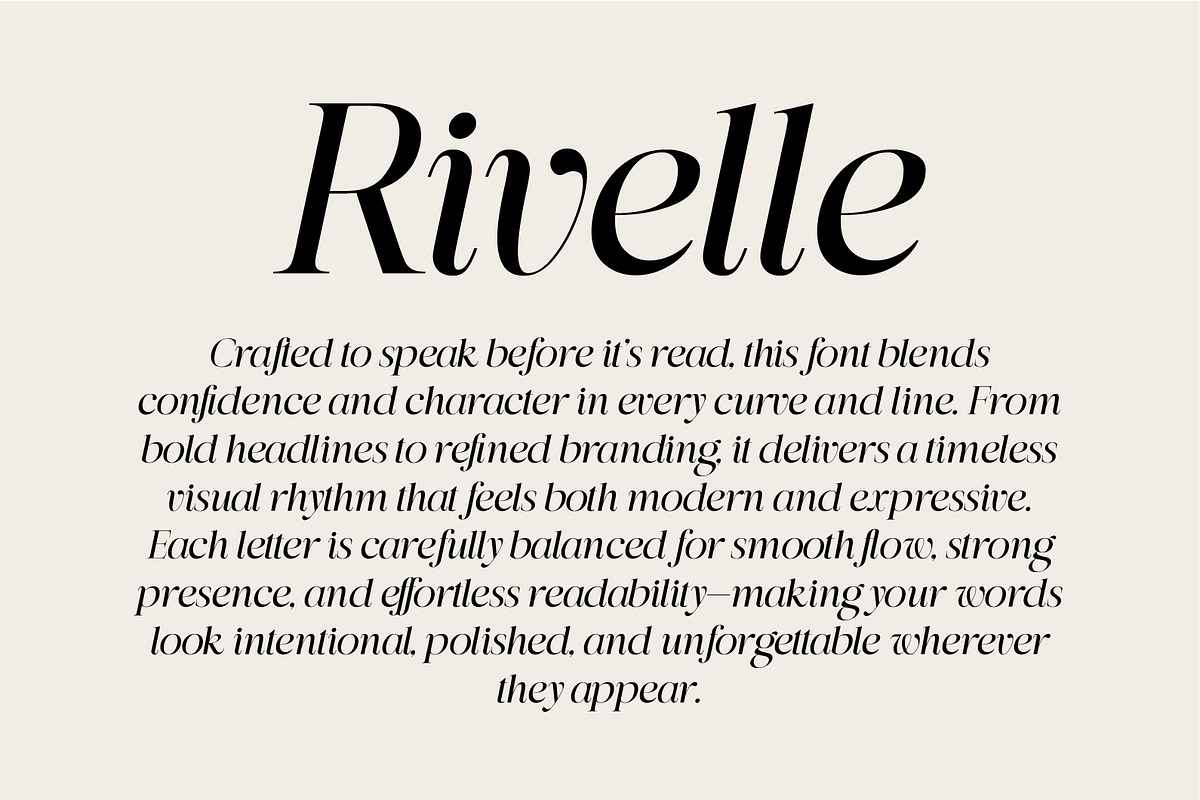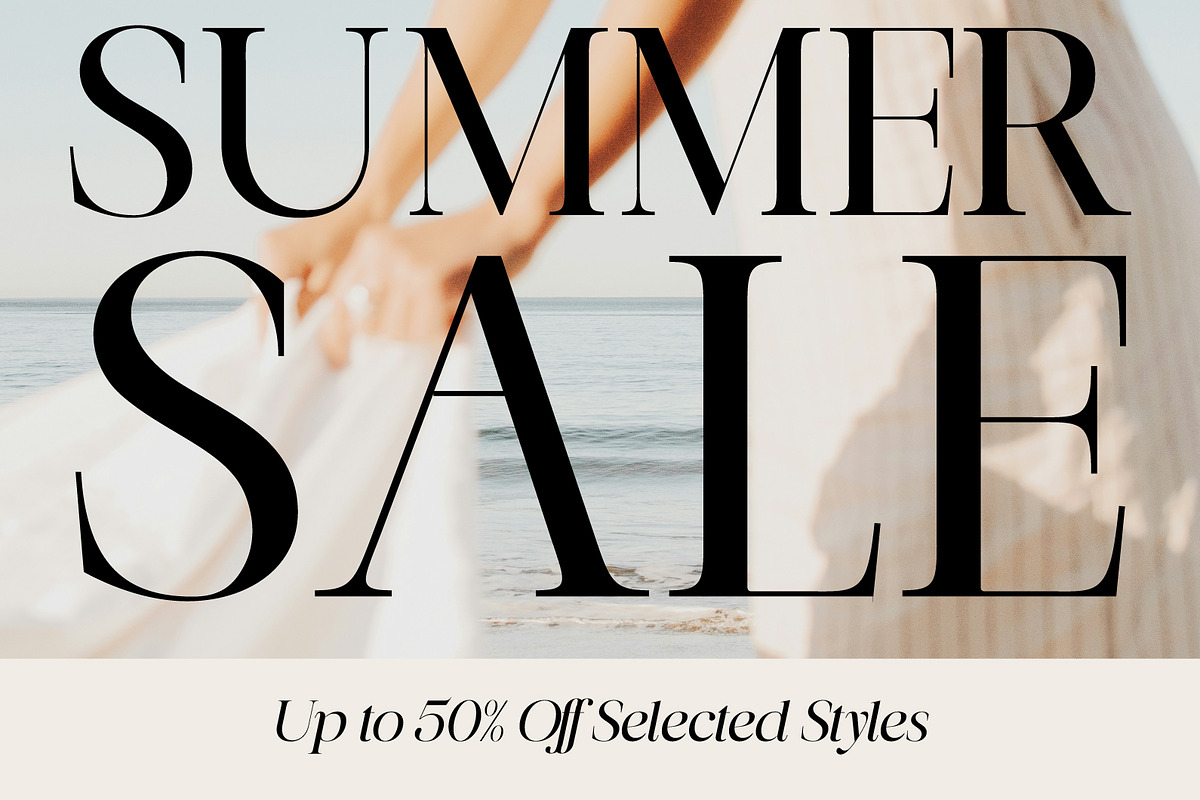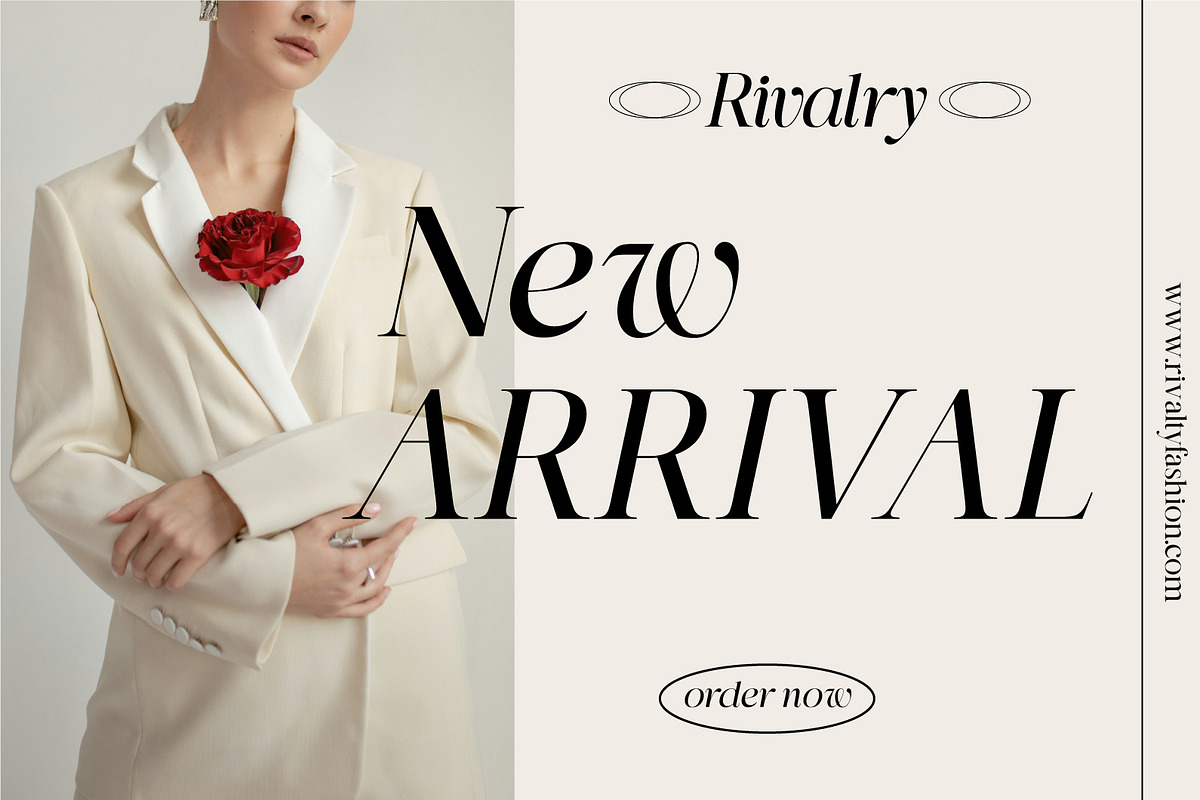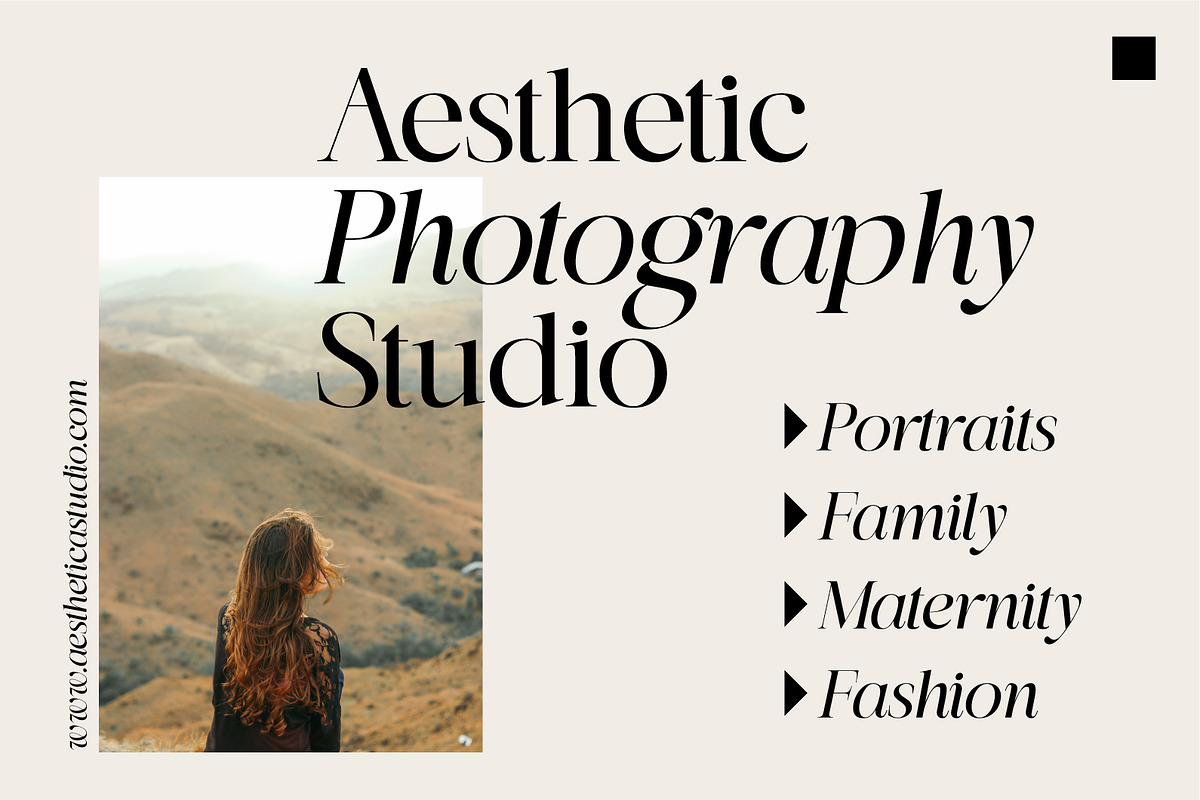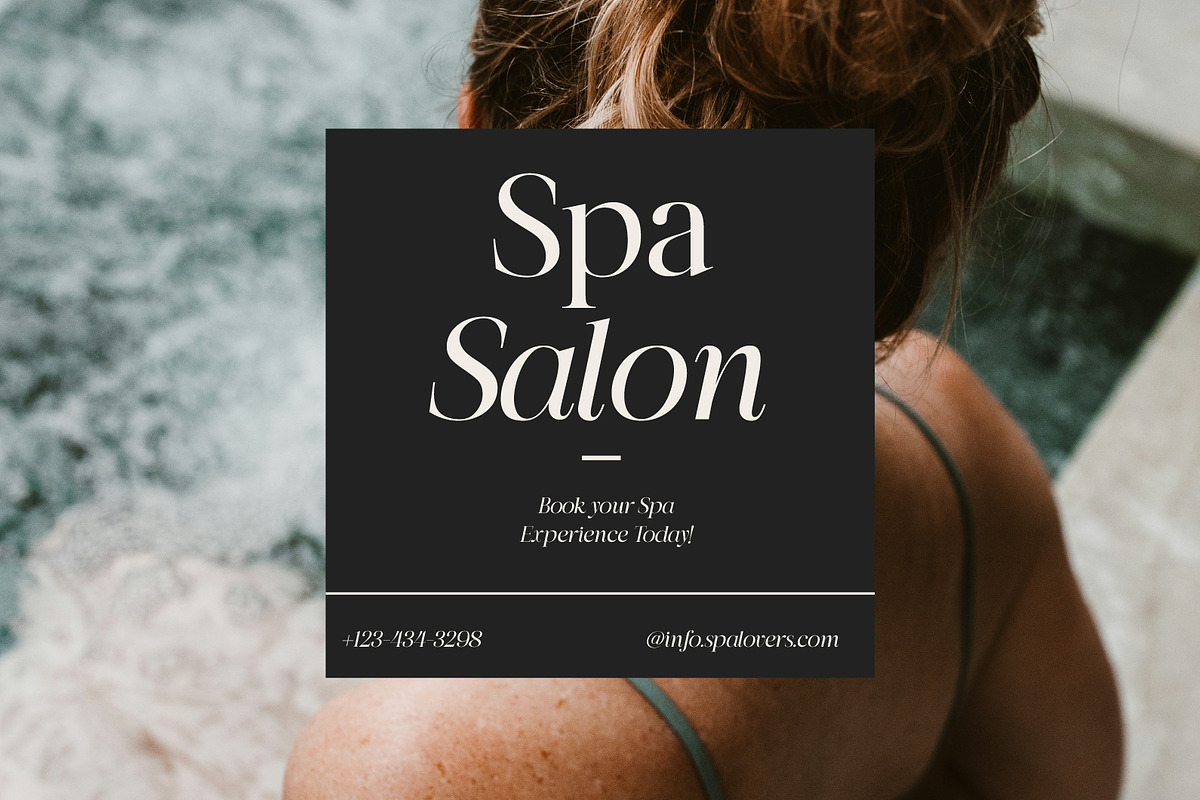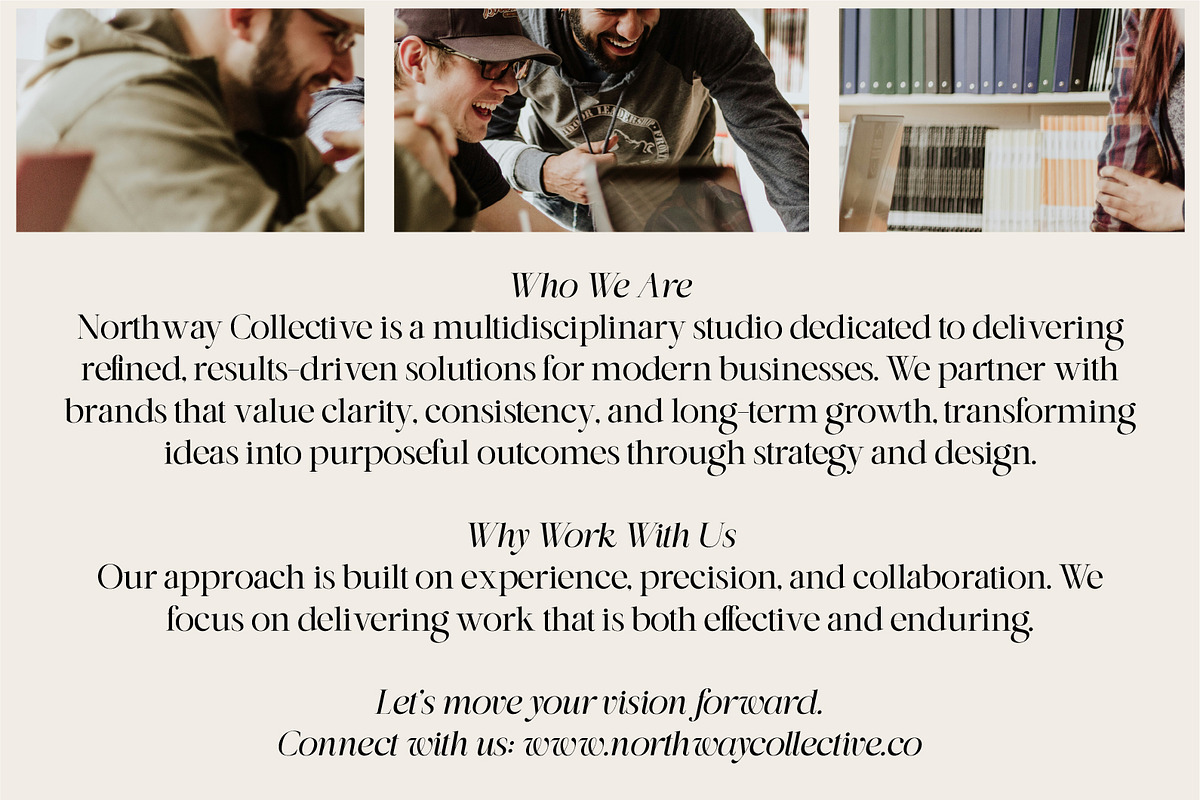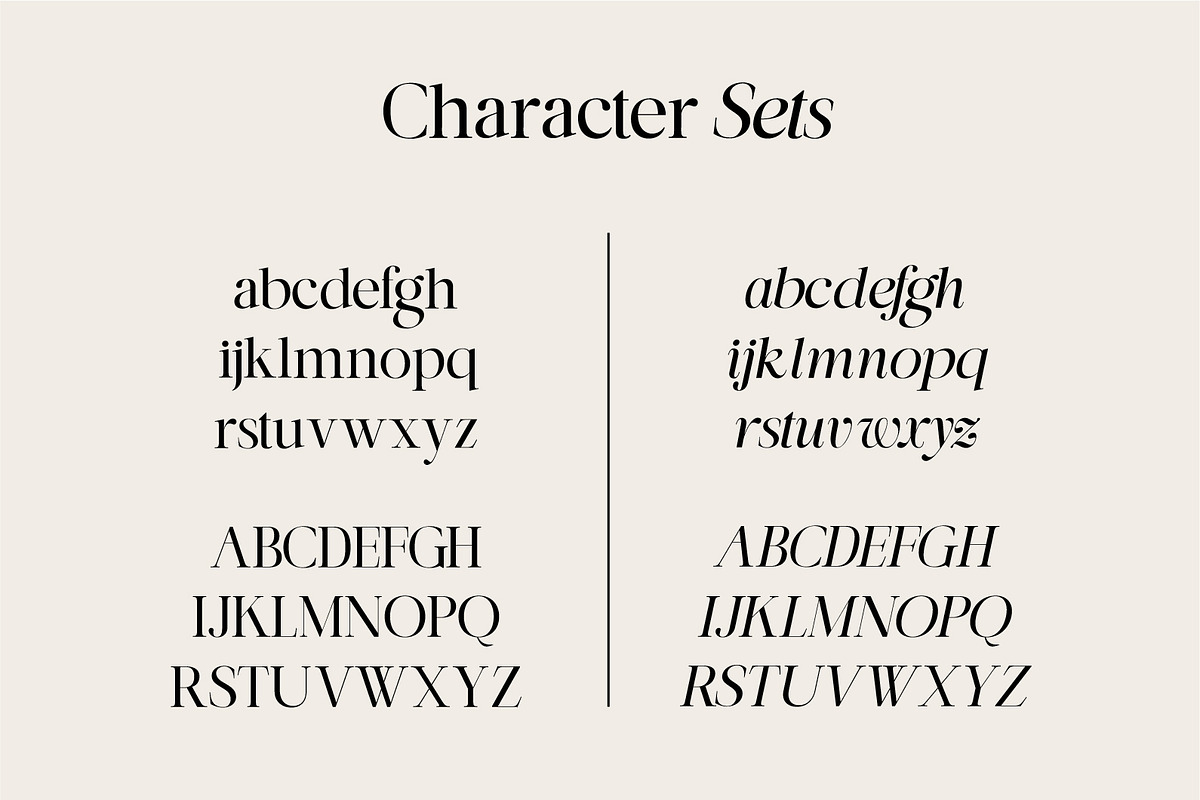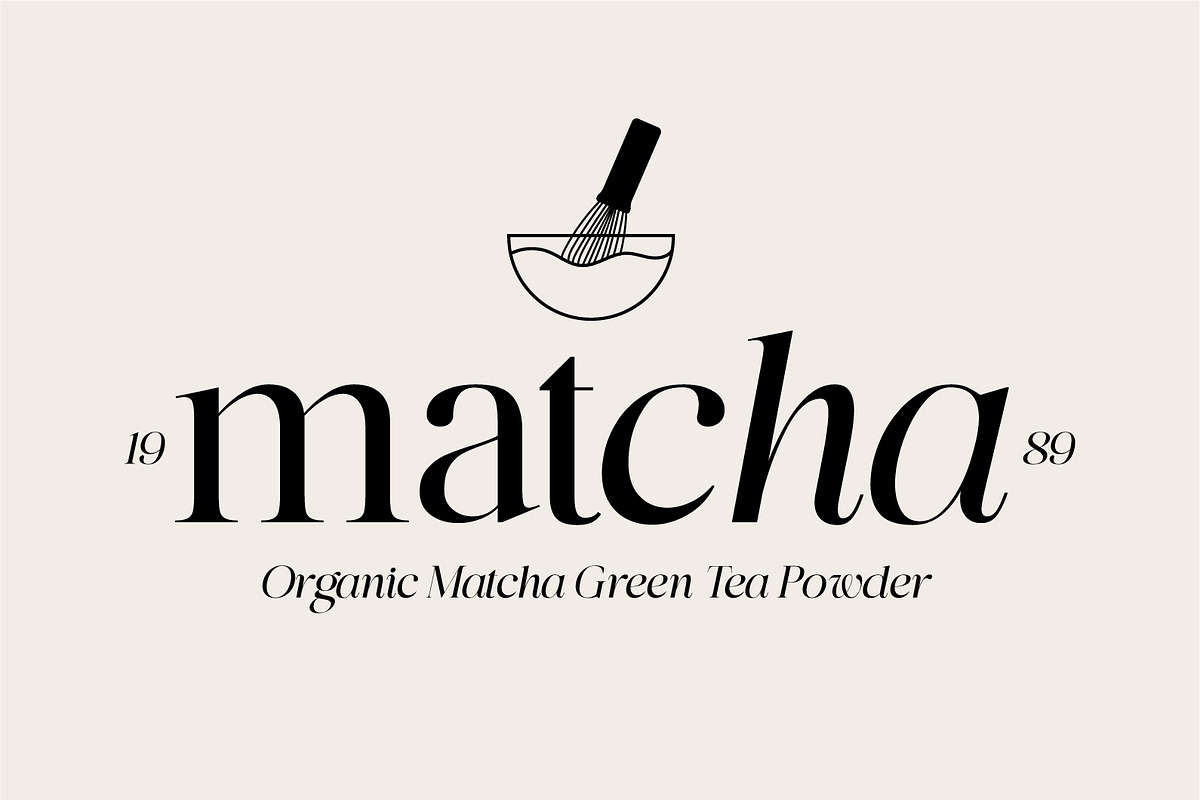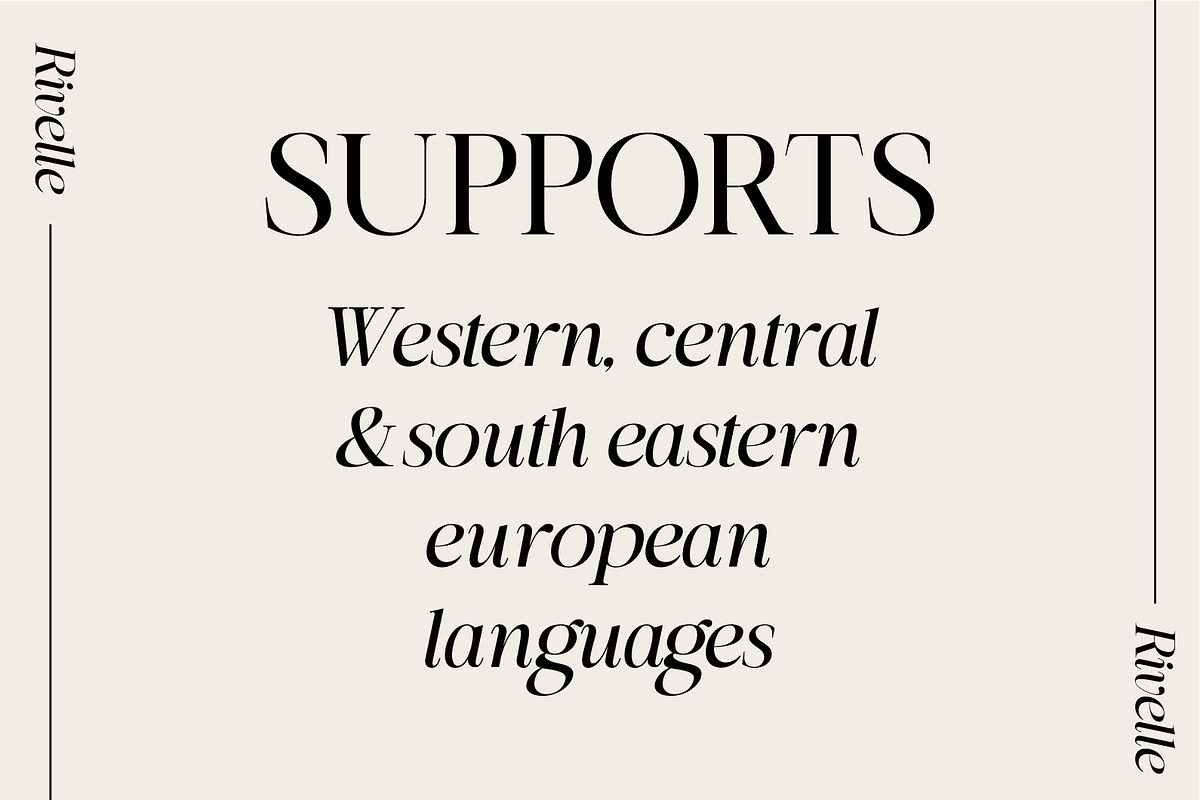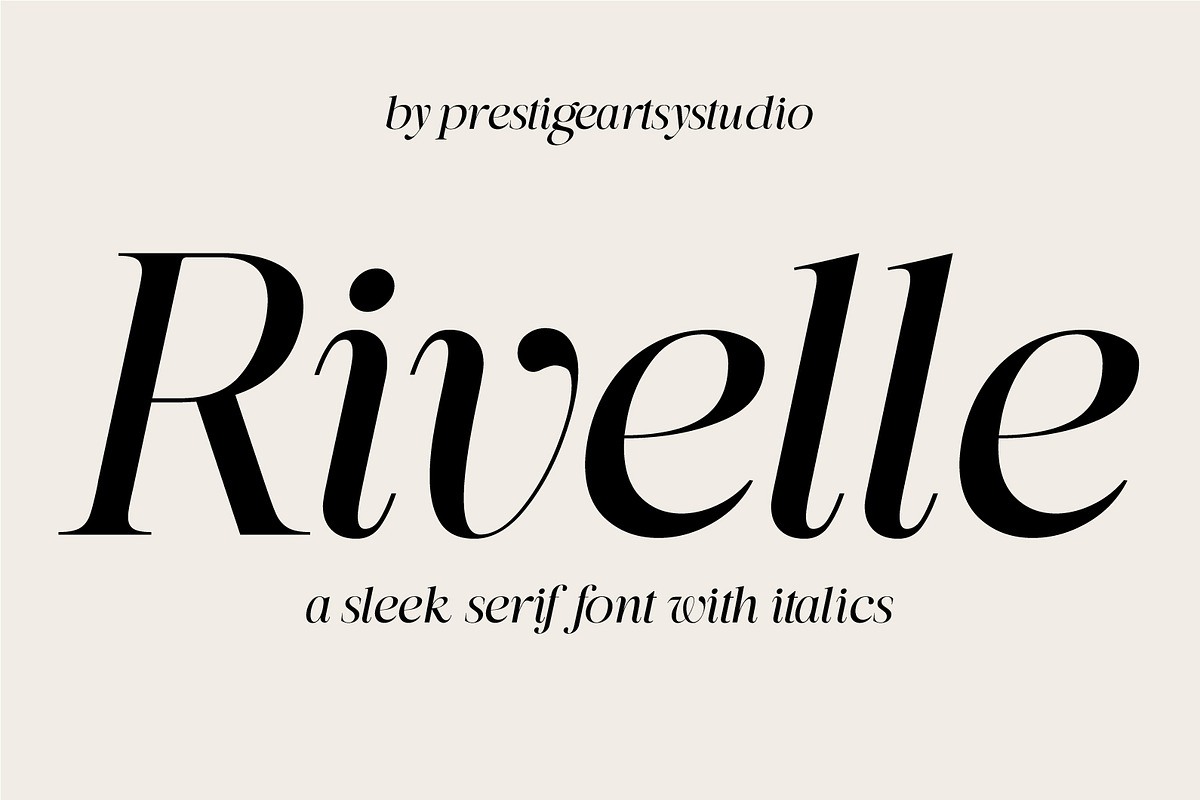
Rivelle
Rivelle is a sleek, sophisticated serif typeface designed for modern brands that value elegance, clarity, and timeless style. With graceful curves, sharp contrast, and expressive italics, Rivelle delivers a refined editorial feel that works beautifully across branding, print, and digital design.
Inspired by contemporary fashion magazines and luxury branding, Rivelle balances classic serif foundations with a modern, confident voice. Its italic style adds fluidity and emphasis, making it ideal for headlines, quotes, and premium layouts.
✦ LANGUAGE SUPPORT Rivelle includes full Western, Southern, and Eastern European language support, as well as Oceanian languages, making it suitable for international brands and global projects.
✦ PERFECT FOR Logo design & brand identities
- Editorial layouts & magazines
- Websites & landing pages
- Luxury packaging
- Fashion, beauty & lifestyle brands
- Social media graphics & ads
- Print materials & stationery
✦ DESIGN CHARACTER
- Elegant & modern serif
- Clean, editorial proportions
- Expressive, refined italics
- Professional, high-end aesthetic
- Excellent readability at display sizes
✦ WHY CHOOSE RIVELLE Rivelle is designed to elevate your work with confidence and polish. Whether you are building a brand, designing a magazine spread, or crafting a premium logo, Rivelle delivers a sophisticated typographic voice that feels intentional, timeless, and professional.